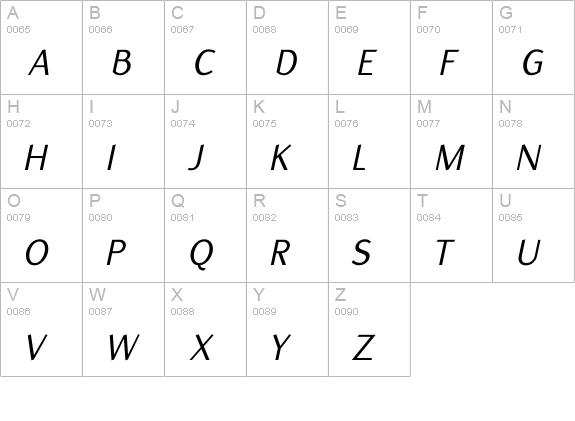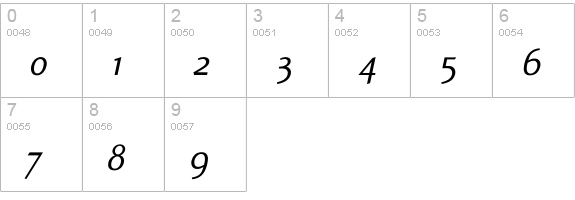
Flux-Italic is a distinctive, italic variant in the Flux typeface family \xE2\x80\x94 well suited to design and typography projects.
Flux-Italic is a stunning and elegant font that exudes a sense of modernity and sophistication. Its sleek and stylish design makes it perfect for a wide range of design projects, from branding to editorial layouts. The italicized characters add a touch of flair and sophistication to any text, making it stand out with a touch of refinement. What makes Flux-Italic even more appealing is that it is available for free download at FontsMarket.com. This means you can easily access this beautiful font without any cost, making it a valuable addition to your font collection. Whether you're working on a personal project or a professional design, Flux-Italic is sure to elevate your work with its unique charm and versatility. Download it today and unleash your creativity with this exquisite typeface.